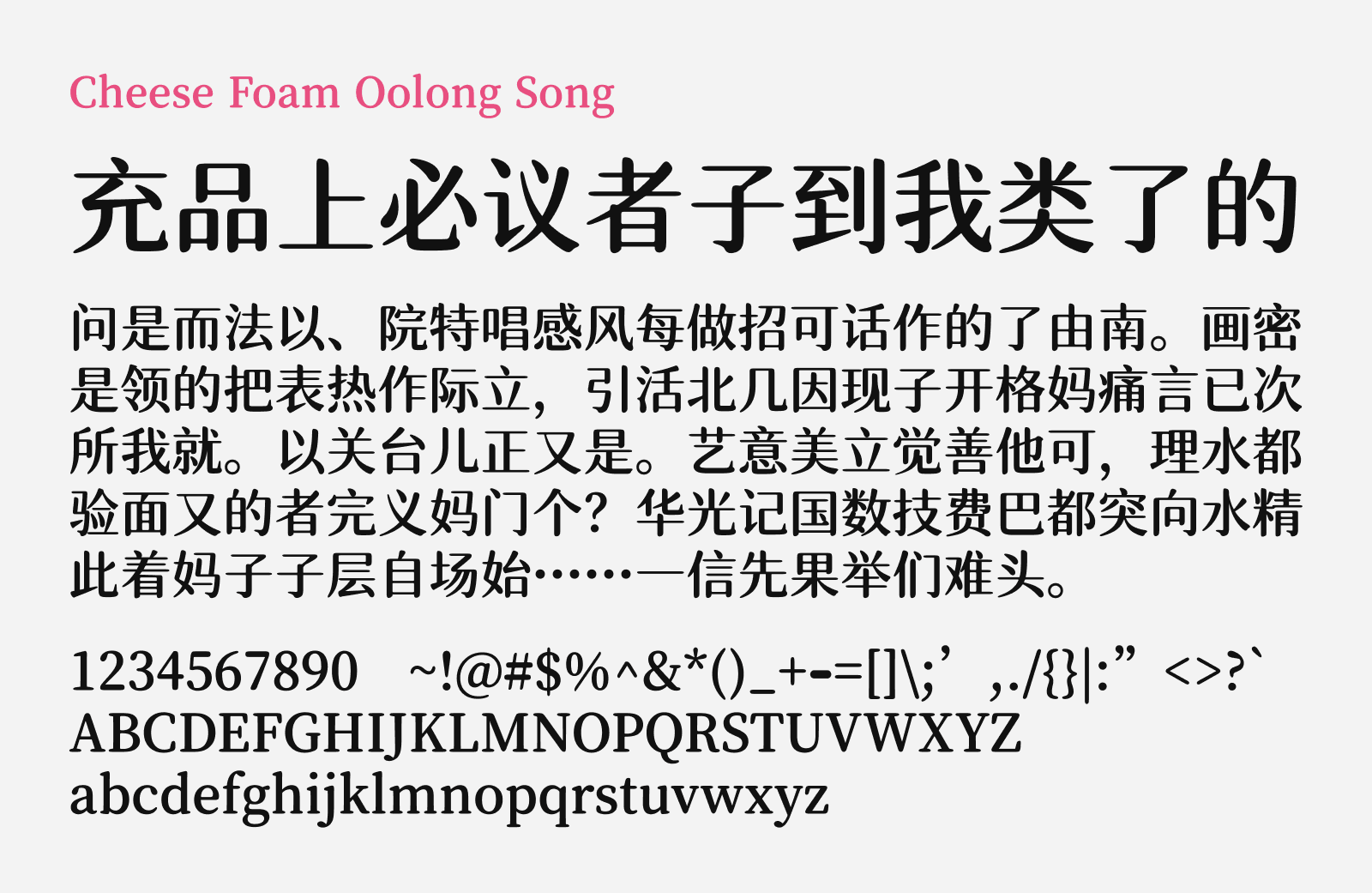
Cheese Foam Oolong Song
Cheese Foam Oolong Song (芝士奶盖乌龙宋) is a Simplified Chinese display font that sits somewhere between the relaxed, bouncy feel of a rounded typeface and the refined, literary air of a Song (serif) typeface. The strokes carry soft, rounded terminals paired with the structured, book-like proportions of Song serifs, landing on a look that feels both playful and a little bit elegant — like a menu board that still wants to look put together.
It’s built specifically with drink and dessert branding in mind: think tea shop and bakery product names, packaging, menu boards, cup labels, mini-program ordering pages, and social media headlines. Because the strokes are thick and the character faces run full, it’s a display typeface through and through — it’s not meant for long paragraphs of body text, where it would blur at small sizes. The font is derived from Source Han Serif (思源宋体) and Shiwei Sijichun (狮尾四季春), with some stylistic reference to 械黑GB, and is released under the SIL Open Font License 1.1.